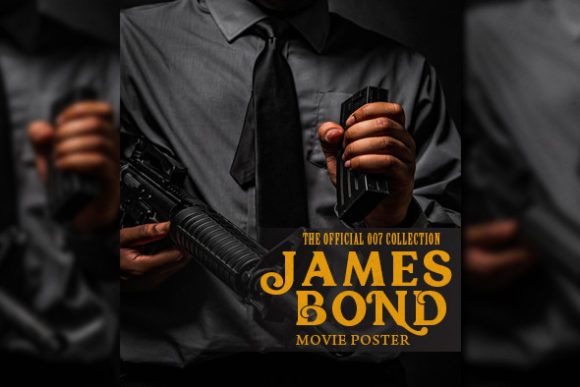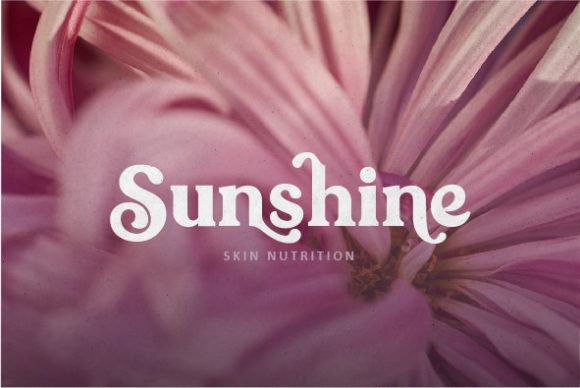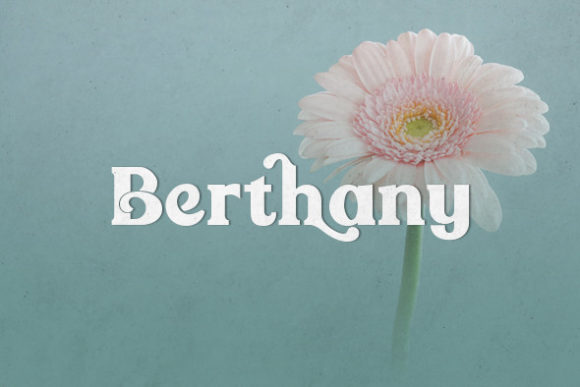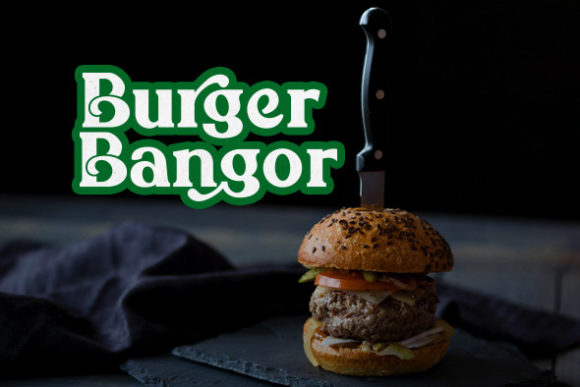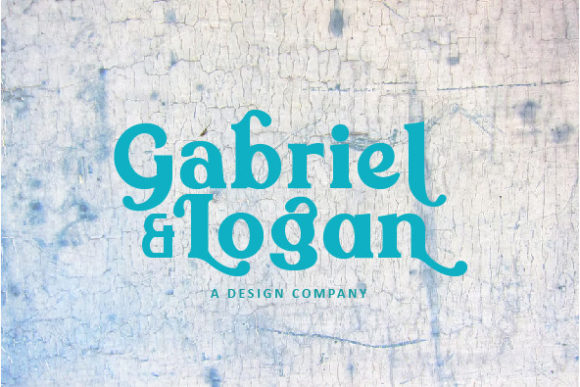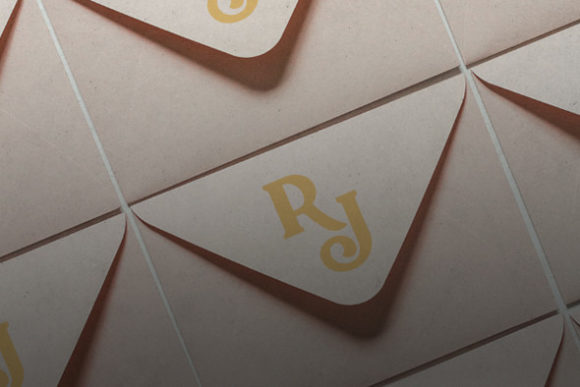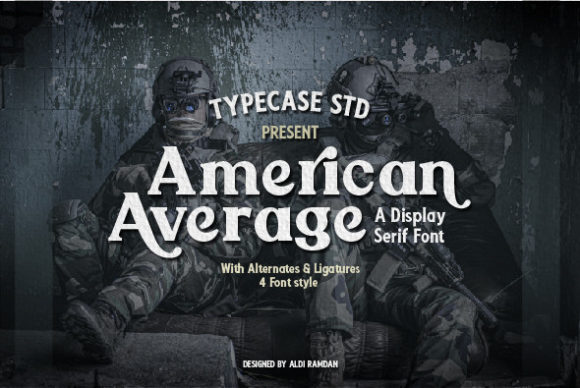
Discover the Elegance of American Average Font: A Modern Serif Marvel
In the realm of typography, fonts play a pivotal role in defining the aesthetic and tone of any design project. Among the myriad of fonts available, the American Average font stands out for its unique blend of modernity and classic elegance. This sleek and modern serif font has been gaining popularity among designers and crafters for its distinctive retro look and versatility. In this article, we’ll delve into the features, benefits, and uses of the American Average font, exploring why it has become a favorite in the design community.
Unveiling American Average: A Sleek and Modern Serif Font
American Average is not just another font; it’s a design statement. Its sleek lines and modern serif characteristics make it an ideal choice for projects that demand a touch of sophistication and elegance. The font’s design is carefully crafted to provide a balance between modernity and classic typographic elements, making it versatile for various design applications.
The Retro Charm of American Average
One of the standout features of the American Average font is its retro look. In an era where modern and minimalist designs are prevalent, American Average offers a refreshing change with its vintage appeal. The font’s ability to evoke a sense of nostalgia while still feeling contemporary makes it a unique addition to any design project. Whether you’re working on a branding project, packaging, or editorial design, American Average can add a distinctive flair that sets your work apart.
Falling for Its Ravishing Style
The term “ravishing” perfectly encapsulates the impact of American Average on a design project. Its stylish and captivating appearance can elevate the visual appeal of any text, making it a joy to use for designers and crafters. The font’s elegant serifs and well-proportioned letters create a harmonious reading experience, making it suitable for both headings and body text.
American Average font takes convenience to the next level with its PUA (Private Use Area) encoding. This feature allows users to access all glyphs and swashes with ease, providing greater flexibility and creativity in design. PUA encoding ensures that designers can make the most out of the font, incorporating intricate details and flourishes that can make a design truly stand out.
Versatility in Design: Uses of American Average Font
The versatility of American Average font is one of its most compelling attributes. Its applications are vast, ranging from:
- Branding and Logo Design: Create memorable and stylish logos that leave a lasting impression.
- Editorial Design: Enhance magazines, newspapers, and digital publications with its elegant and readable text.
- Packaging Design: Add a touch of sophistication and charm to product packaging.
- Web Design: Use it for website headings, banners, and other design elements to create a cohesive and attractive online presence.
- Crafting and DIY Projects: Perfect for crafters who want to add a professional and stylish touch to their projects, such as handmade cards, posters, and more.
Why Designers and Crafters Love American Average
Designers and crafters appreciate American Average for its unique combination of style, versatility, and ease of use. Here are a few reasons why it has become a favorite:
- Unique Style: Offers a distinctive look that can help designs stand out.
- Ease of Use: PUA encoding makes it easy to access and use glyphs and swashes.
- Versatility: Suitable for a wide range of design projects, from digital to print.
- Modern yet Retro: Combines contemporary design elements with a vintage appeal.
| Author | Typecase |
American Average font is a remarkable addition to the world of typography, offering a perfect blend of modernity and classic elegance. Its sleek and modern serif design, coupled with its retro charm, makes it a versatile and stylish choice for designers and crafters alike. With its PUA encoding for easy access to glyphs and swashes, American Average is not just a font but a tool for creativity and expression. Whether you’re working on a professional design project or a personal crafting endeavor, American Average is sure to leave a lasting impression with its ravishing style and timeless appeal.